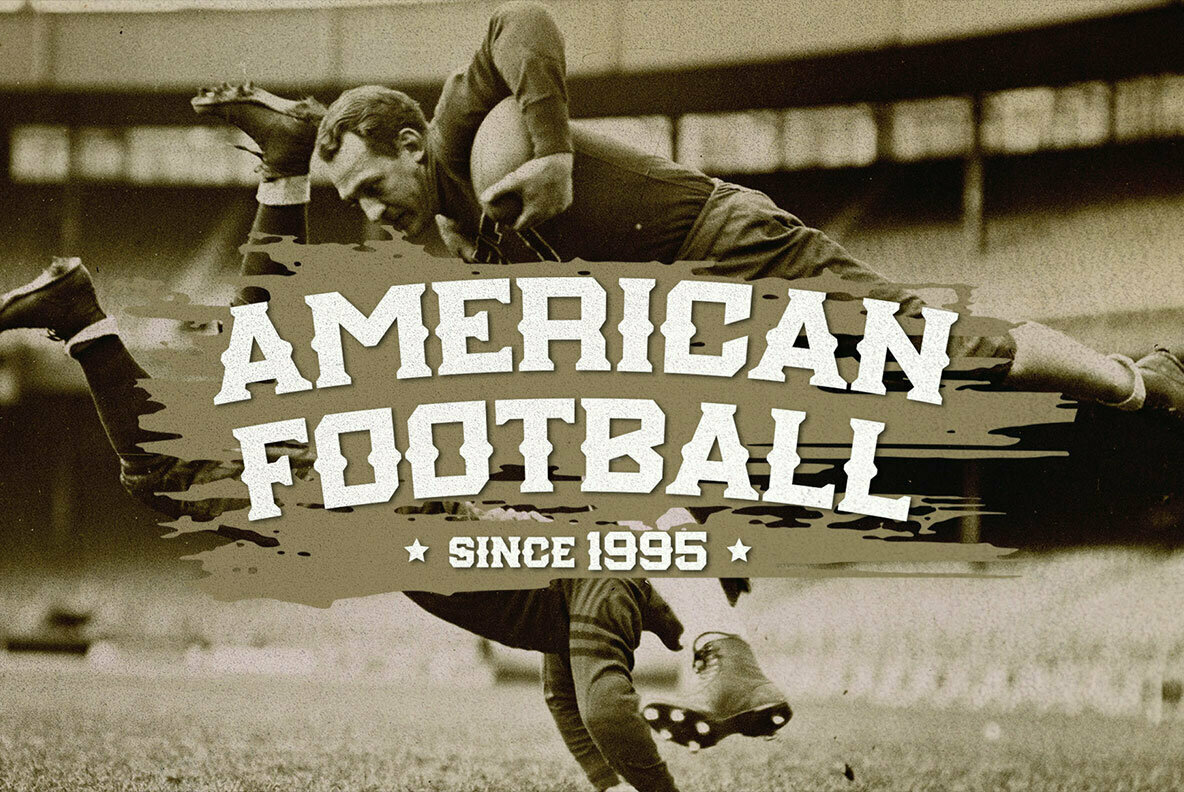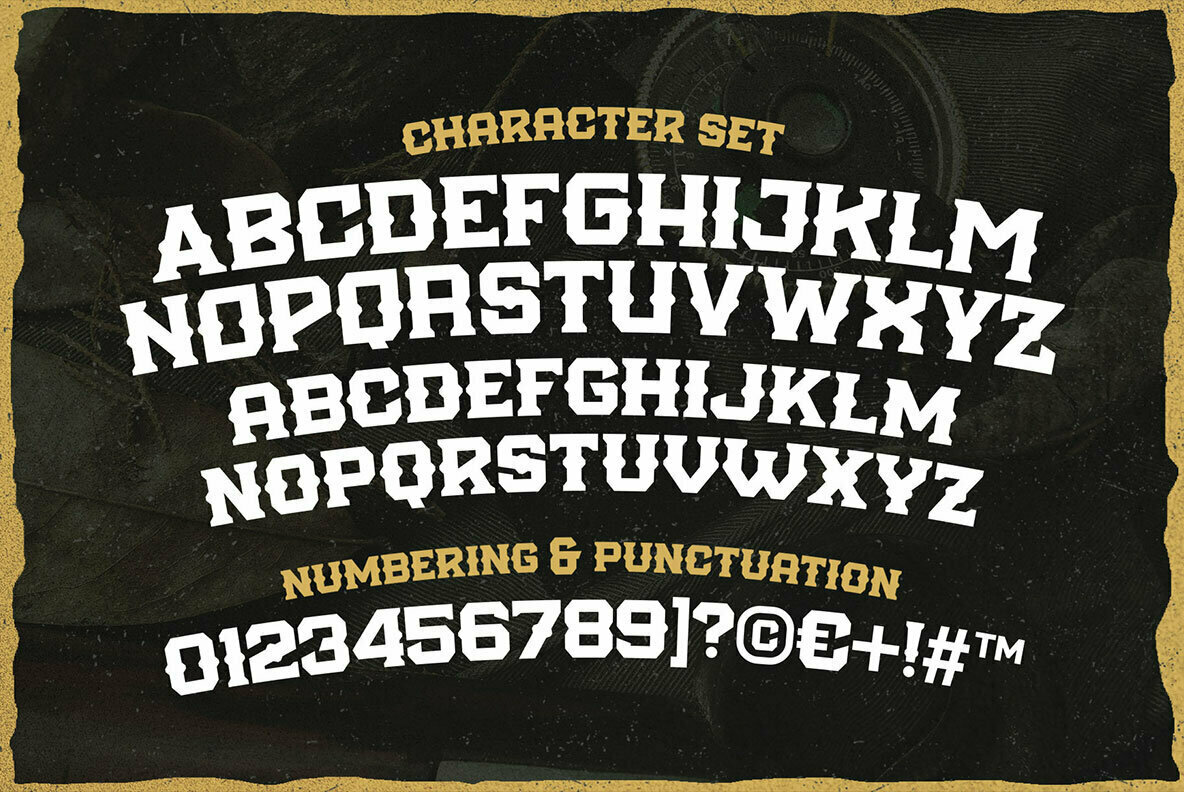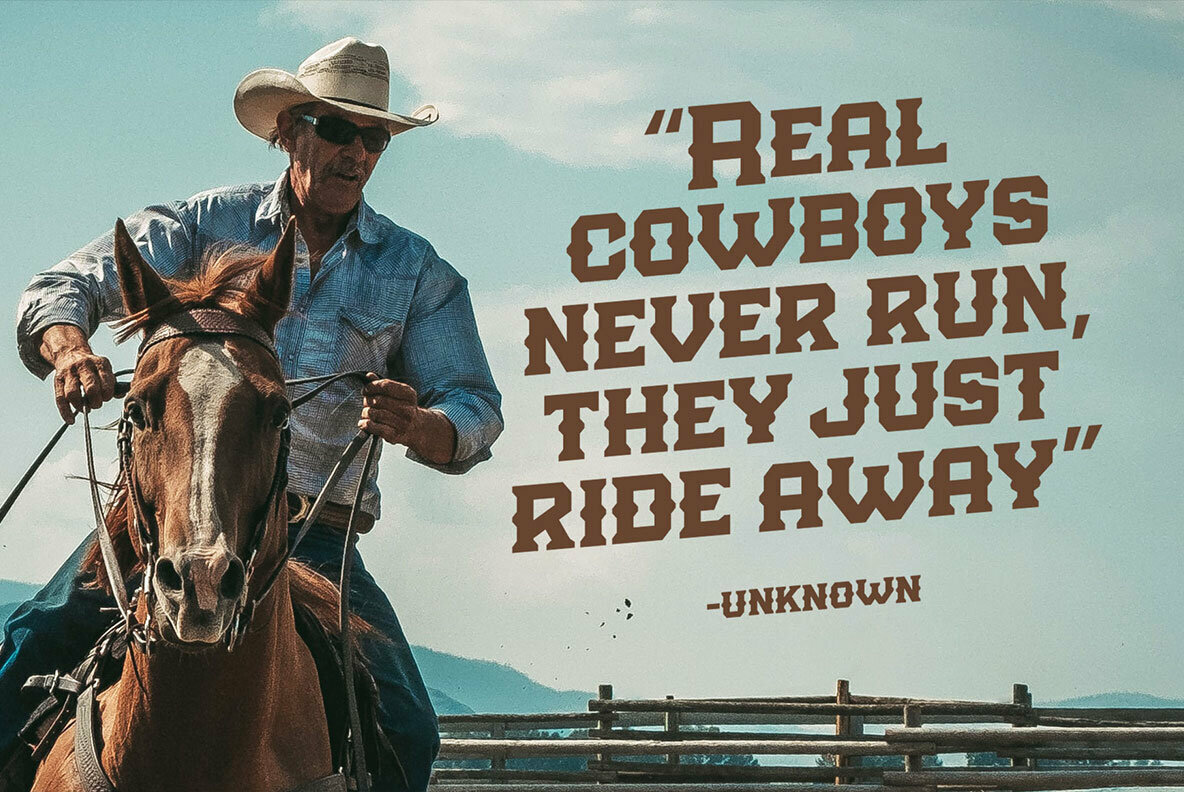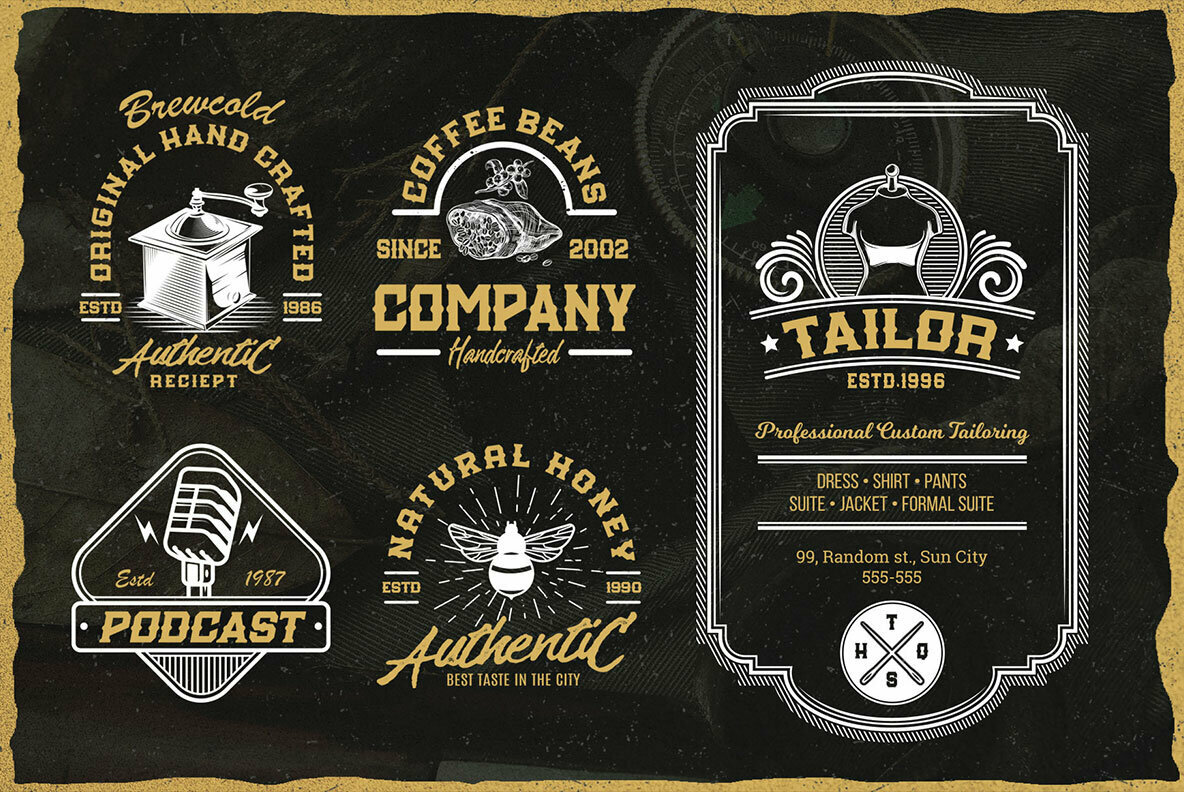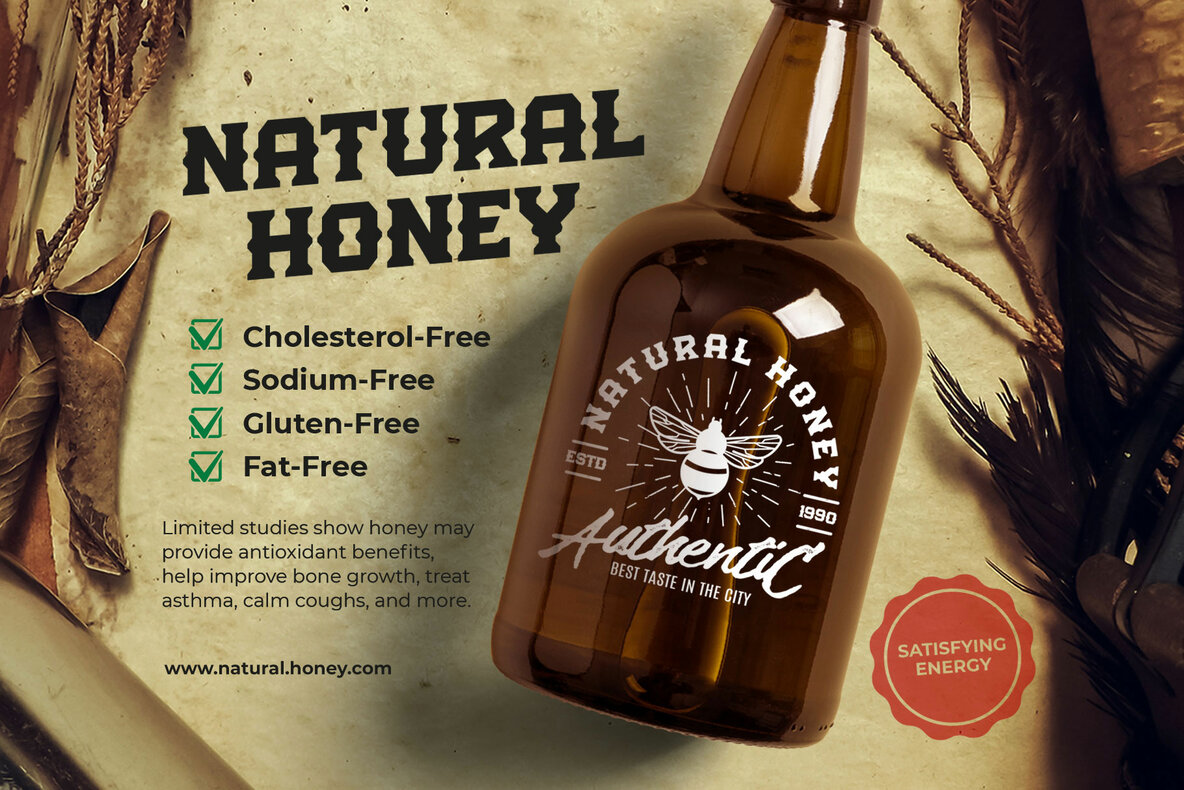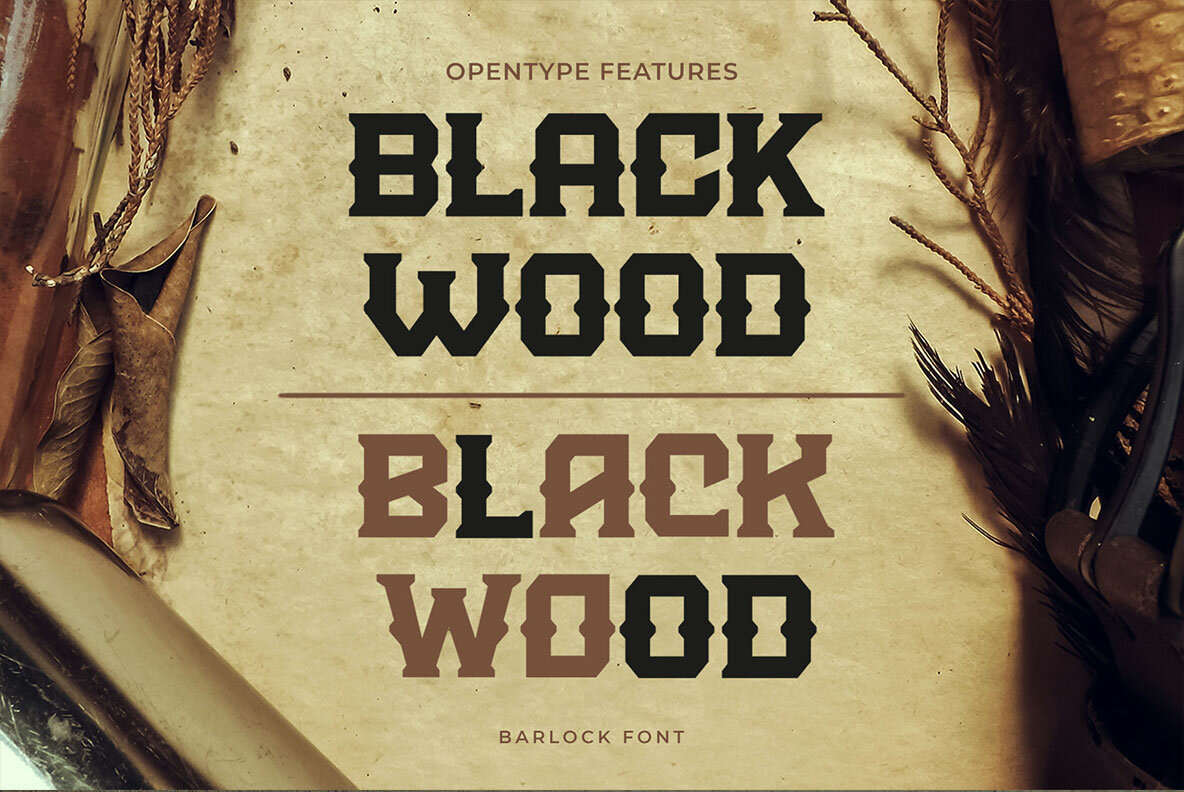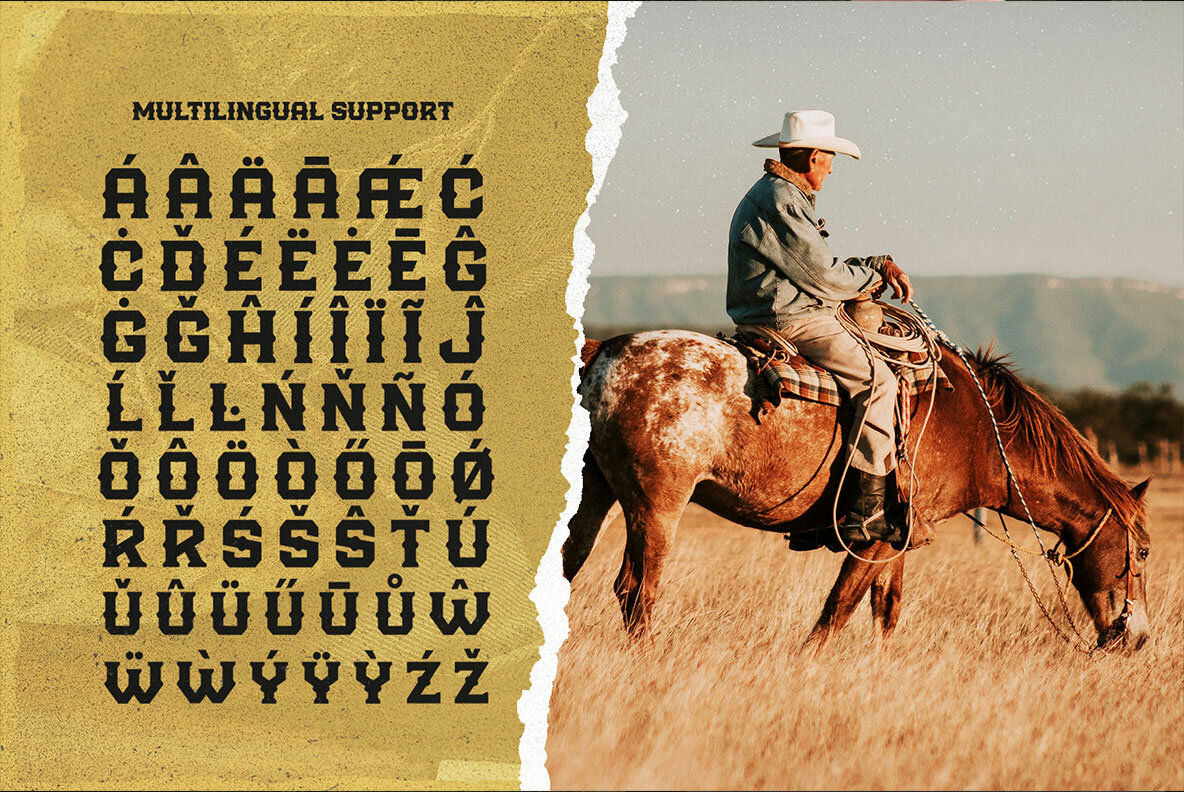
Barlock Font
Barlock
Inspired by the dynamism of sports design and the charm of vintage typography, Barlock is a striking display font created by Ahmad Ramzi Fahruddin. Its design features bold, curve-less letterforms that maintain an elegant strength, making it a standout choice for creating impactful visuals. Barlock is an all-caps typeface that offers a wealth of alternates, perfect for customizing your design concepts. Its robust style adapts beautifully to projects such as logos, posters, apparel, labels, jerseys, headlines, quotes, books, packaging, and beyond. Features:Barlock: Bold Display Font With Old-School Flair